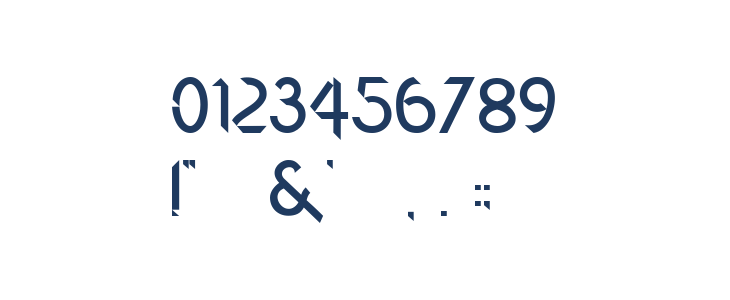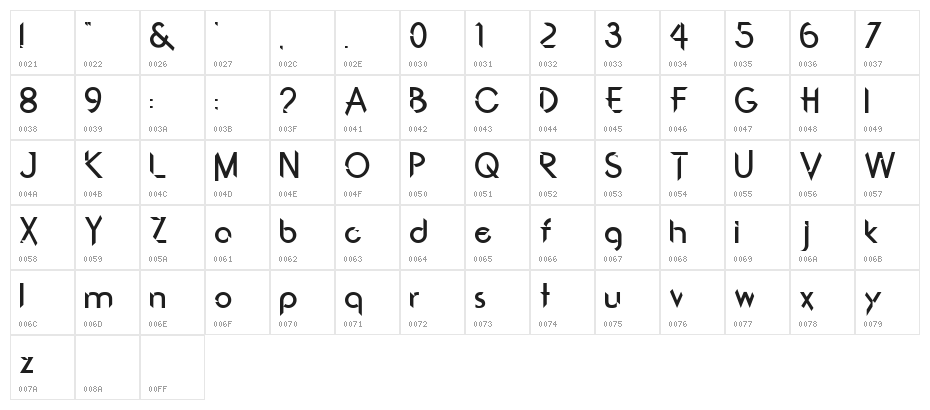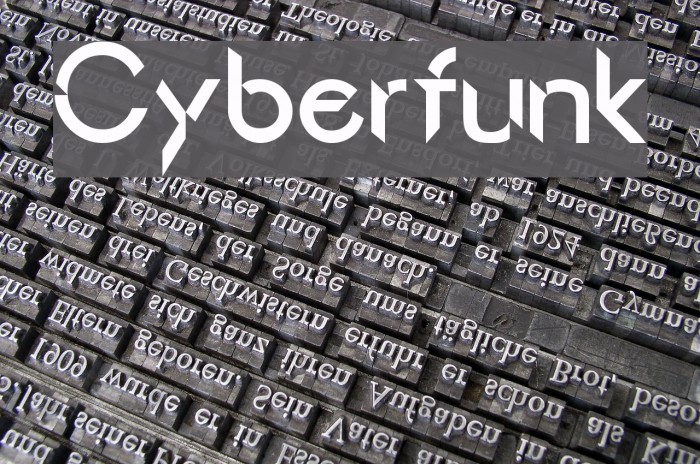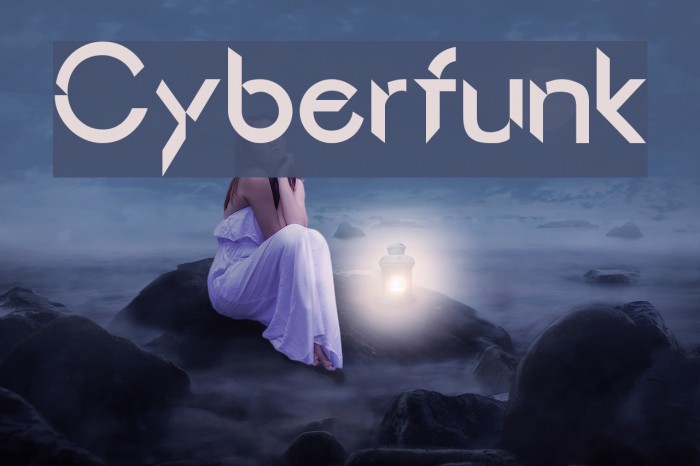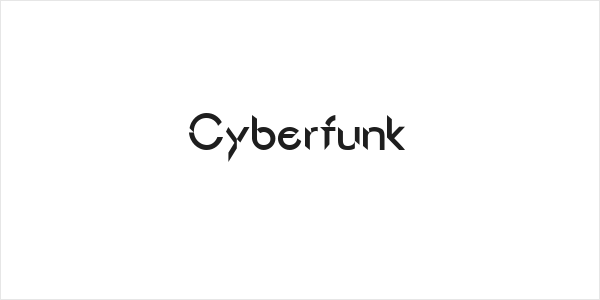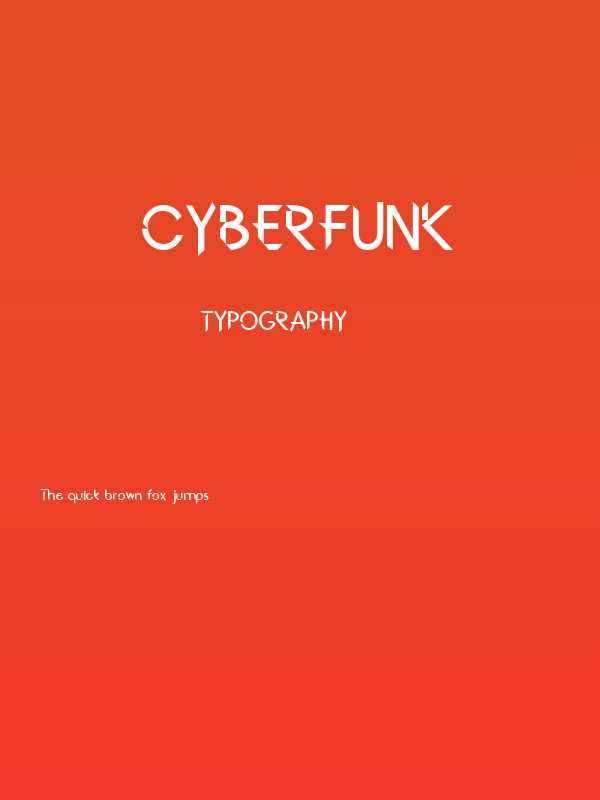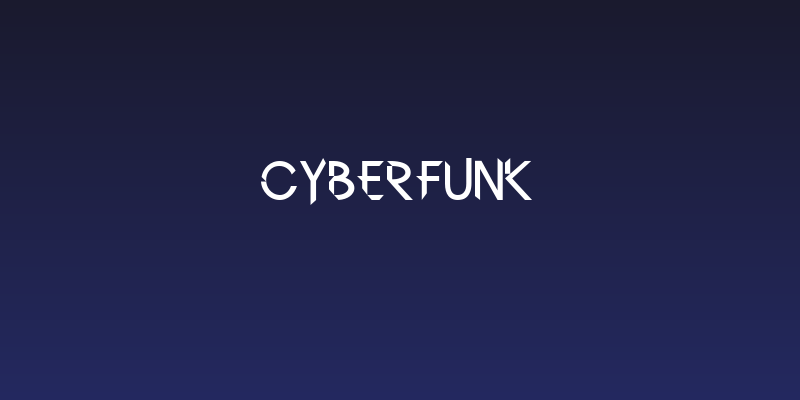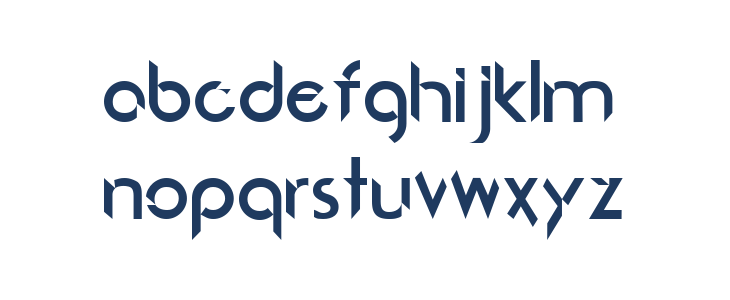
Cyberfunk Font
Cyberfunk Description
This font features a futuristic and geometric design, characterized by sharp angles and clean lines. The uppercase letters exhibit a bold and assertive presence, while the lowercase letters maintain a consistent style with slightly softer curves. Numbers and special characters follow the same angular theme, ensuring a cohesive look across all glyphs. The font's modern aesthetic is ideal for projects that require a cutting-edge and tech-savvy appearance. Its unique style makes it stand out, suitable for digital interfaces, branding, and creative designs.
| Use Case | Headlines, Logos, Digital interfaces |
| Proposed Projects | Ideal for tech branding, digital interfaces, sci-fi themed projects, and modern advertising. |